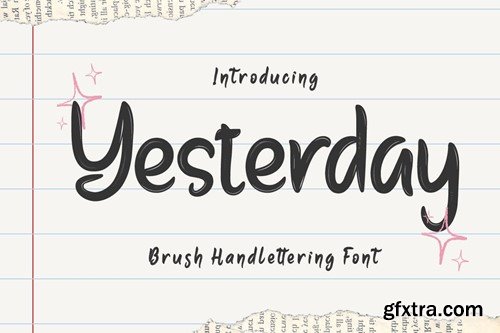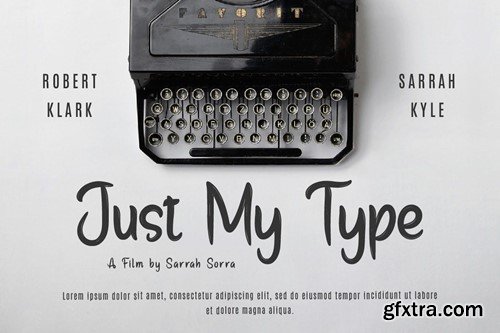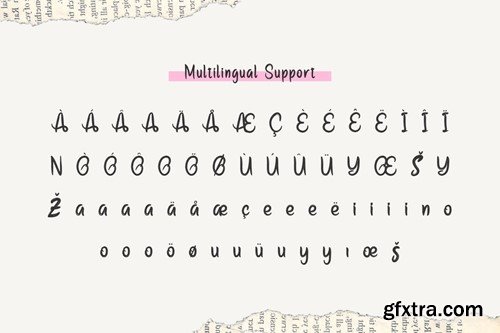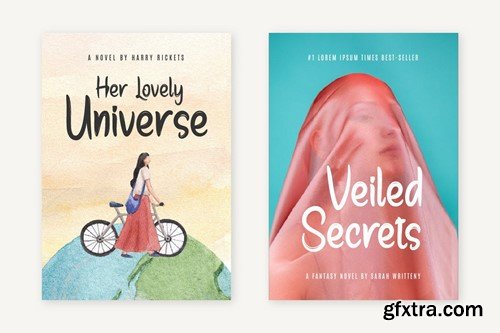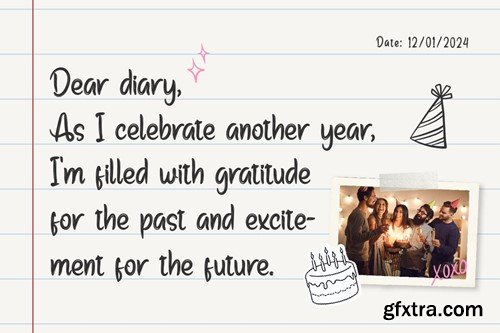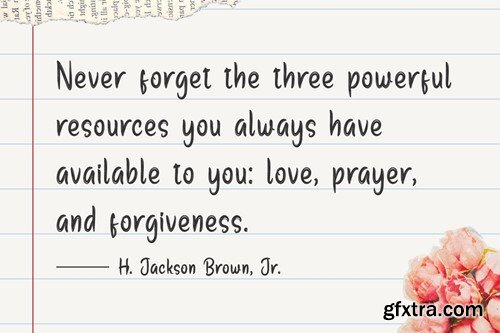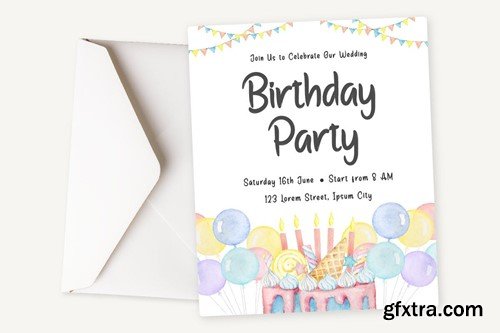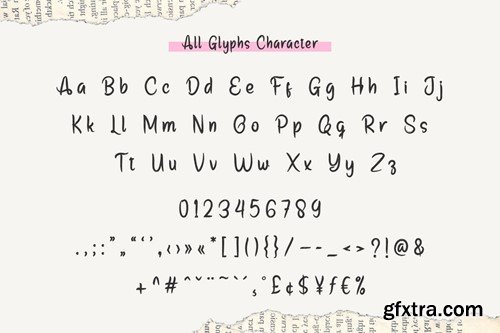
昨日 - 刷手写字体 8UT7DV2
Yesterday - Brush Handwritten Font 8UT7DV2
Yesterday - Brush Handwritten Font
Yesterday is a brush handwritten font that brings a touch of nostalgia to your designs. Its unique, vintage-inspired characters are perfect for designs that require a touch of retro charm. Whether you’re creating a poster for a vintage-themed event or a logo for a retro diner, Yesterday adds a touch of yesteryear that is sure to captivate your audience.